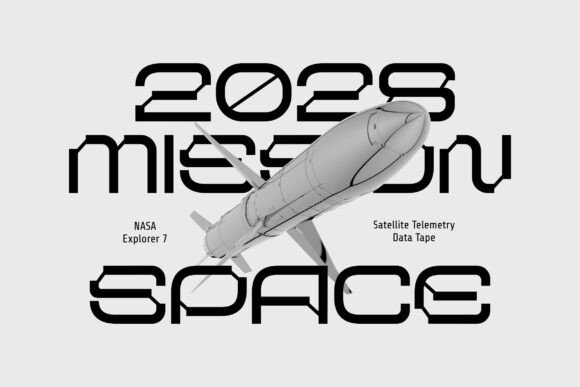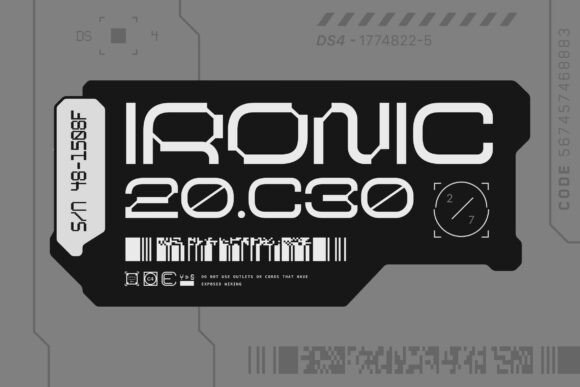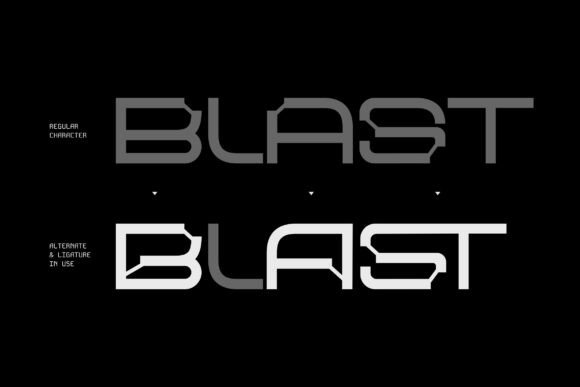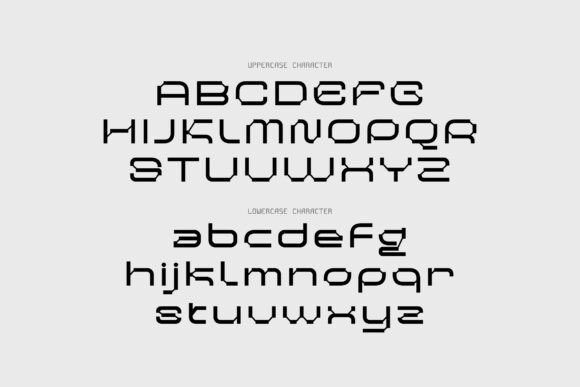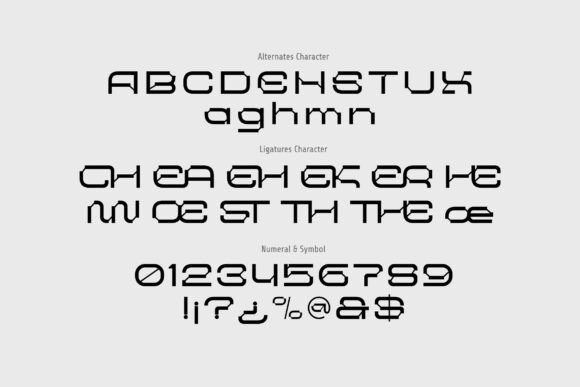
Introduction to Nebula Rolek Font
Dive into the future with Nebula Rolek, a font that embodies the perfect blend of sci-fi aesthetics with cutting-edge technology.
Nebula Rolek is designed to elevate your projects to a new level of modernity and innovation This font is ideal for a range of contemporary designs, whether used in tech branding, poster cyberpunk, sci-fi designs, or any project seeking a bold and progressive style.
Key Features of Nebula Rolek Font
Why Choose Nebula Rolek Font?